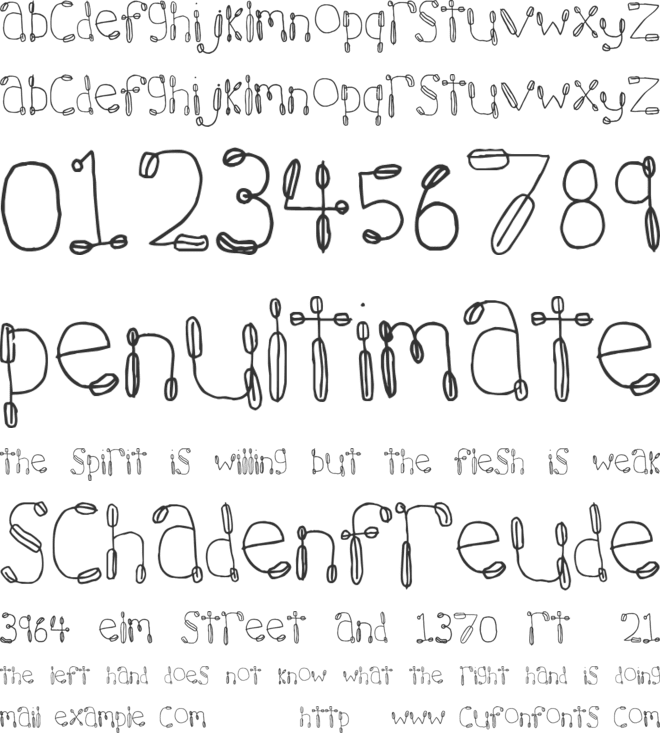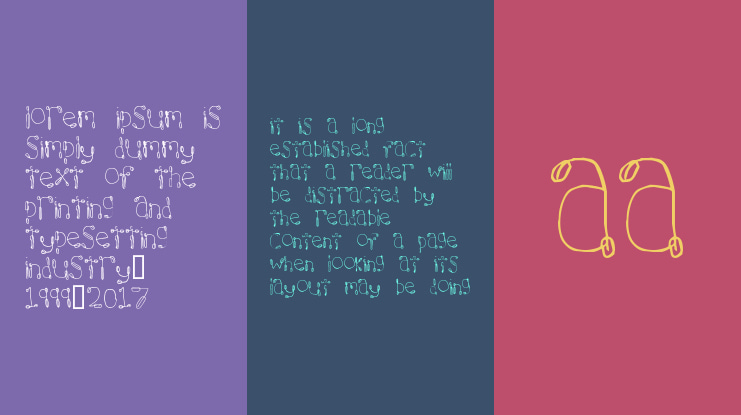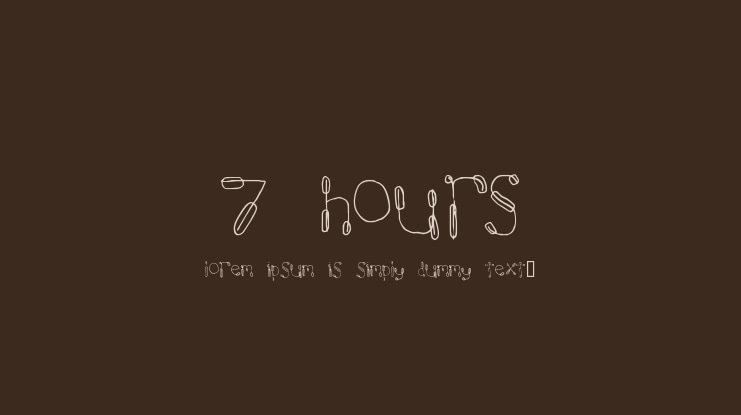
(Lowercase/Caps [same], Numbers) is how much time I'm supposed to be spending per week on Physics; here's what I did instead. Actually it's been quite busy since I've gotten to college so my previously prolific nature has suffered somewhat. Hopefully soon I will be Back In Action. In any case, this is a line-based font with, well, I don't know what to call them. Look at the picture. Designed for headlines only.